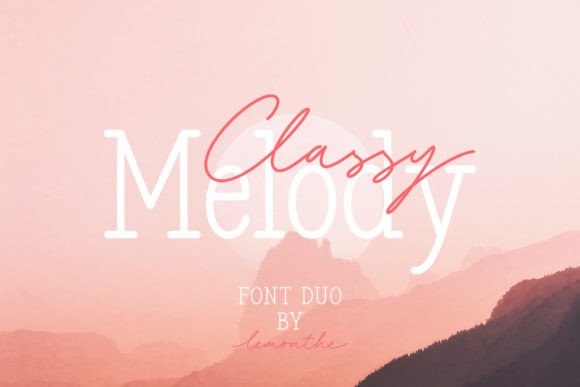
Dive into the world of enchanting typography with Classy Melody Font, a harmonious blend of monoline script and slab serif fonts. This captivating duo is a designer's dream, bringing a modern and elegant touch to any project. Whether you're designing logos, invitations, stationery, wedding designs, signatures, product designs, labels, or photography, Classy Melody Font will elevate your creations to new heights.
With its PUA encoding, Classy Melody Font grants you the freedom to explore all glyphs and swashes, opening up endless possibilities for customization. Unleash your creativity and let your designs sing with the harmonious charm of Classy Melody Font.
This font is not just a collection of characters; it's an orchestra of styles, waiting to harmonize with your vision. Its monoline script dances across the page with a delicate grace, while the slab serif adds a touch of timeless elegance. Together, they create a visual masterpiece that commands attention and leaves a lasting impression.
Classy Melody Font is more than just a font; it's an invitation to let your creativity flow. Whether you're a seasoned designer or just starting out, this font will ignite your imagination and take your designs to the next level. Embrace the allure of Classy Melody Font and let your designs sing.
So, prepare to be mesmerized as Classy Melody Font transforms your designs into works of art. With its captivating charm and endless possibilities, this font is the perfect choice for adding a touch of elegance and sophistication to any project. Step into the world of Classy Melody Font and let your creativity shine!